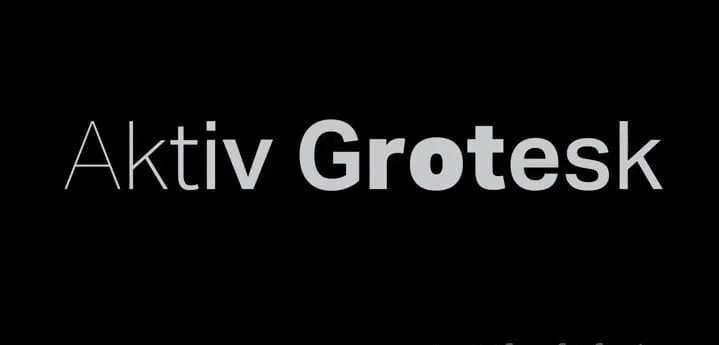
Aktiv Grotesk Font is perfect for a wide range of design projects including professional branding, corporate identities, editorial layouts, user interface design, wayfinding systems, business communications, modern packaging, and clean website designs. Its neutral yet refined character makes it an exceptional choice for projects that demand clarity, professionalism, and contemporary sophistication.
What makes Aktiv Grotesk Font exciting is its perfect execution of the neo-grotesque tradition with subtle modern refinements. The font features precise letterforms with carefully balanced proportions that deliver outstanding readability at any size while maintaining a distinct personality. Its versatile nature allows it to work seamlessly in both text and display applications, making it an invaluable asset for comprehensive brand systems and editorial projects.
Aktiv Grotesk Font comes in multiple font families including Hairline, Thin, Light, Regular, Medium, Bold, Black, ExtraBlack, and corresponding Italic variations. These extensive weight options provide designers with exceptional flexibility to create sophisticated typographic hierarchies and maintain visual consistency across diverse applications and platforms.
For designers seeking a typeface that combines Swiss precision with contemporary sensibility, Aktiv Grotesk Font Free Download offers professional excellence and remarkable versatility. The font's clean architecture and neutral character make it equally effective for corporate communications, editorial design, digital interfaces, and brand identities that require timeless elegance and functional perfection.